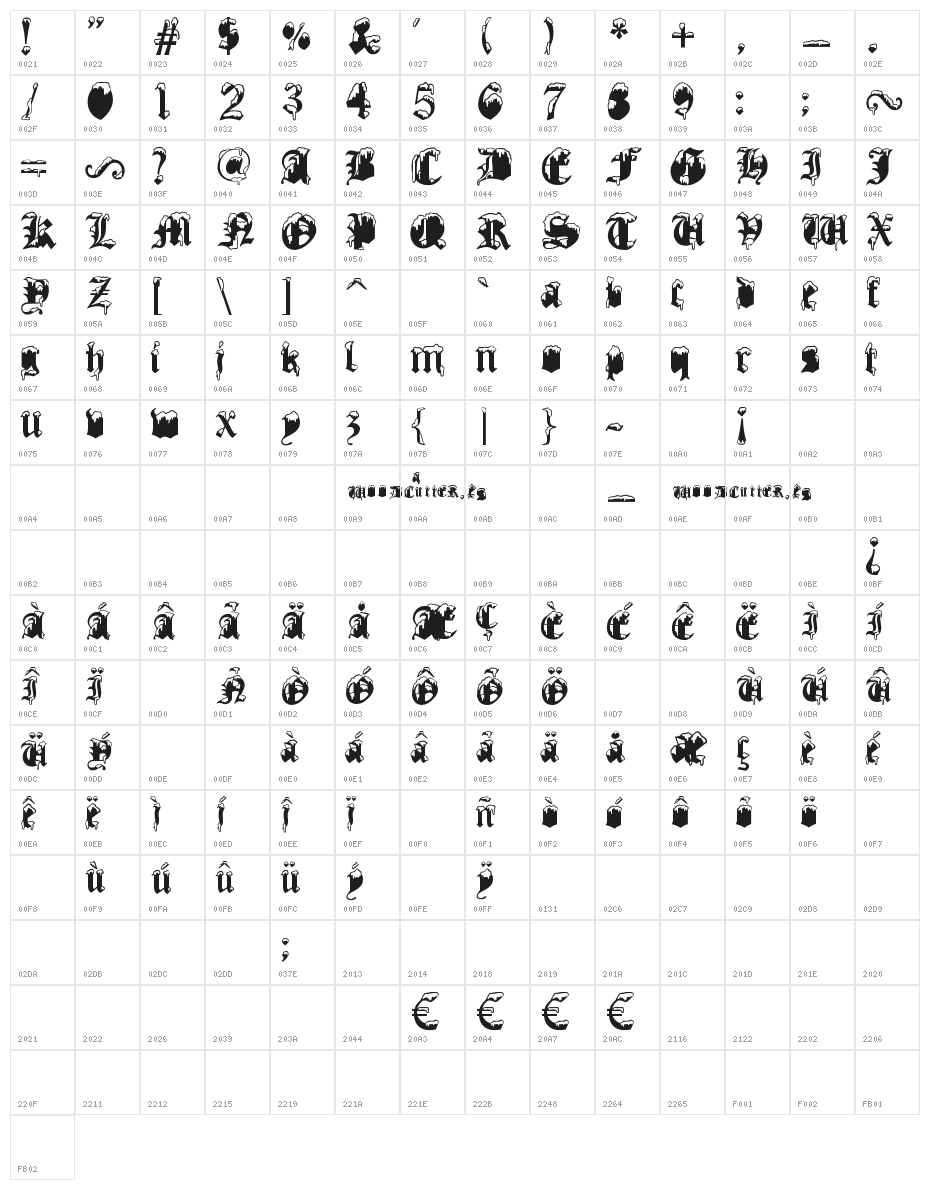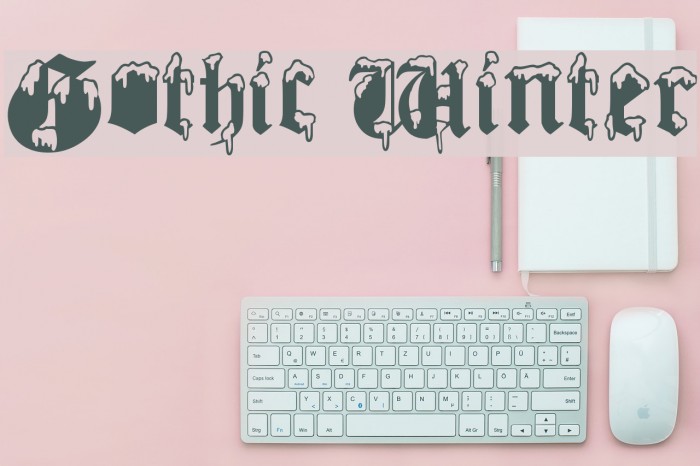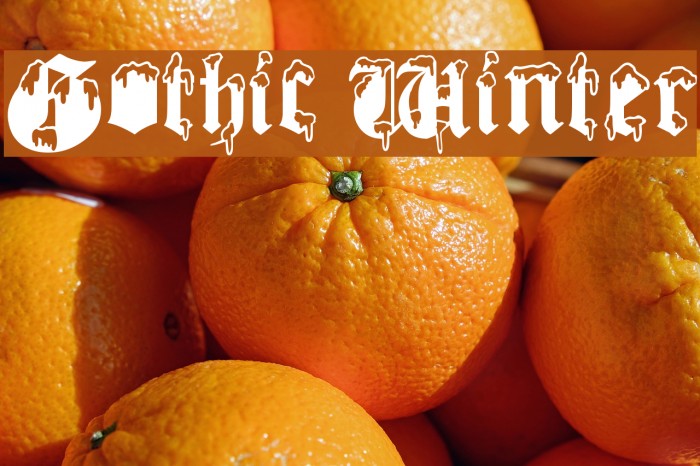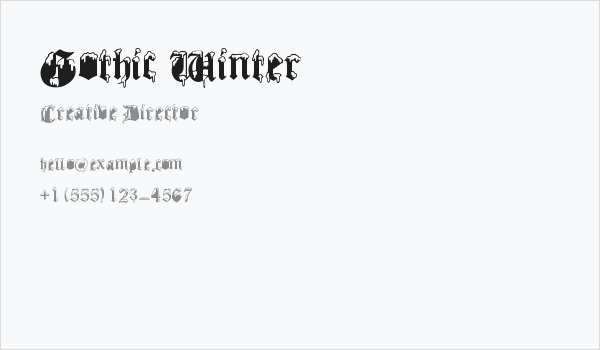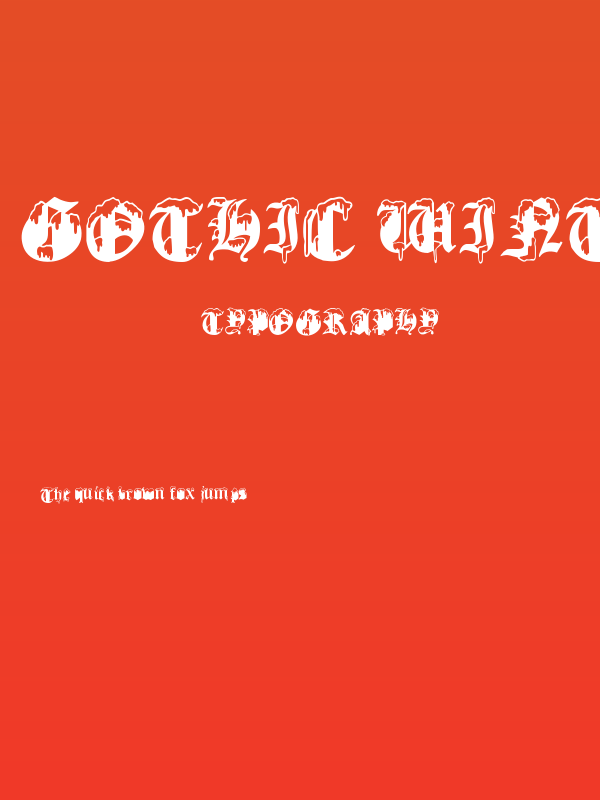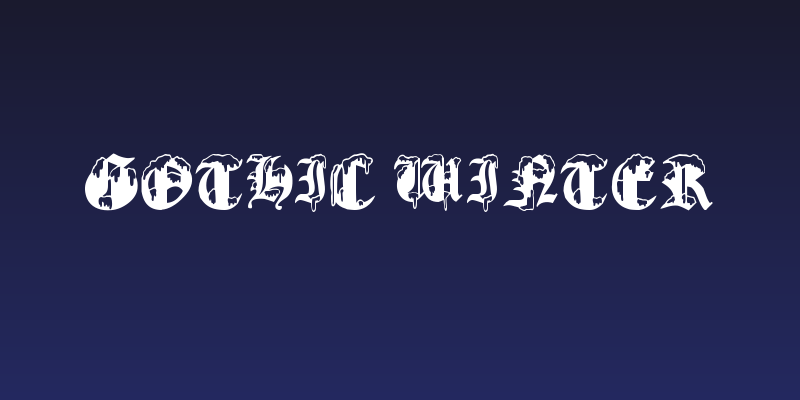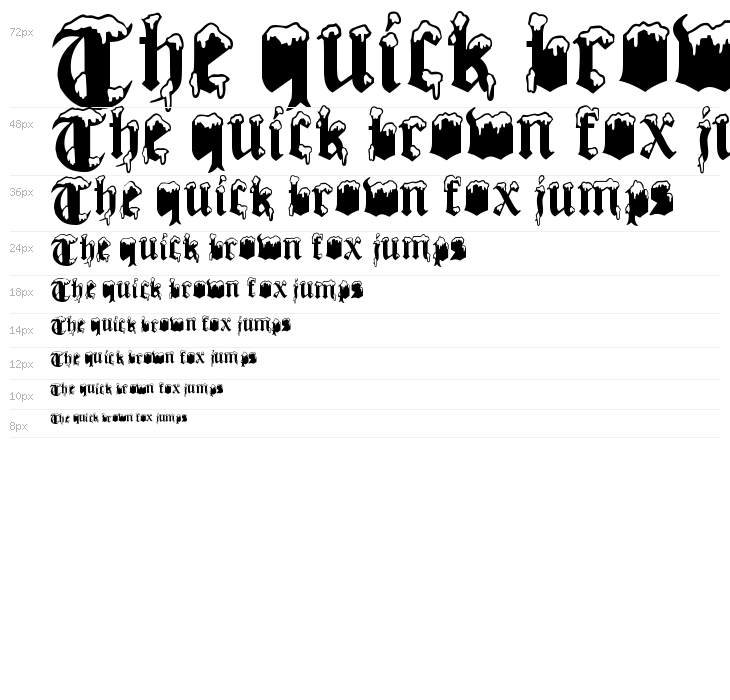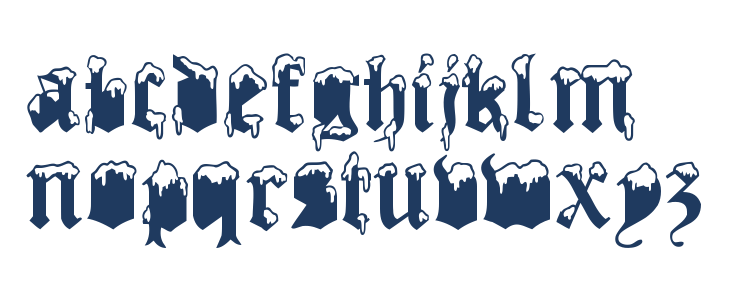
Gothic Winter Font
Gothic Winter Description
This font features a striking Gothic style with a unique winter theme, characterized by snow-like accents on each letter. The uppercase and lowercase letters are designed with intricate, sharp edges typical of Gothic fonts, giving them a dramatic and bold appearance. The numbers and special characters follow the same thematic design, ensuring consistency across all elements. The snow detail adds a whimsical touch, making it ideal for seasonal or holiday-themed projects. The font's overall aesthetic is both vintage and decorative, capturing the essence of a winter wonderland with a medieval twist.
| Proposed Projects | Ideal for holiday cards, winter festival posters, themed event invitations, or any project requiring a dramatic, seasonal touch. |